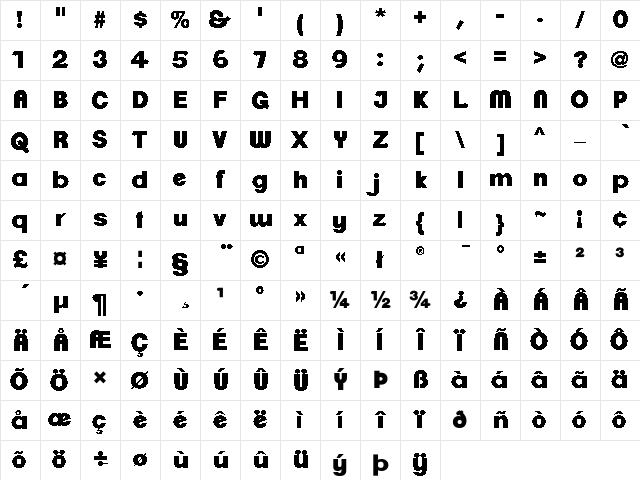
ClementePDaq is a composed and adaptable typeface that performs quietly and consistently across a wide range of design contexts. Its bold stroke weight gives it real presence on the page.